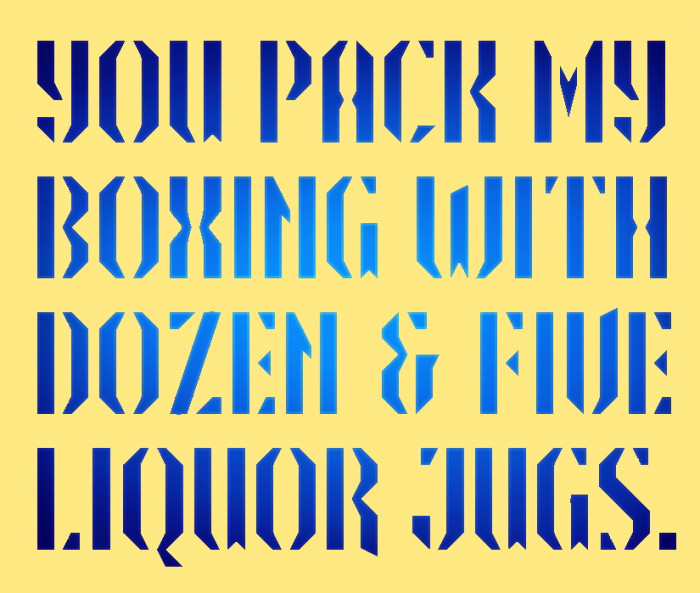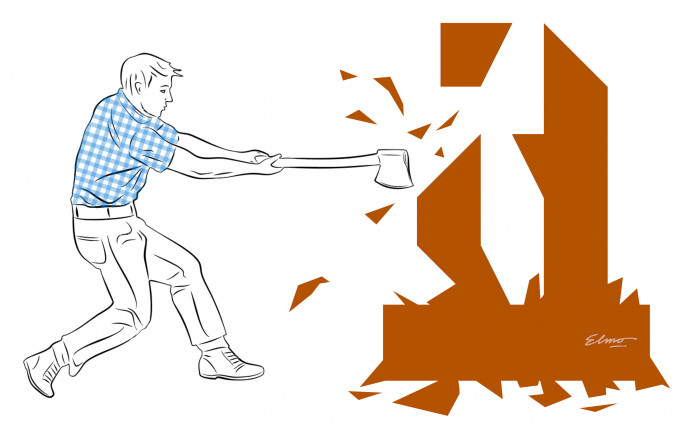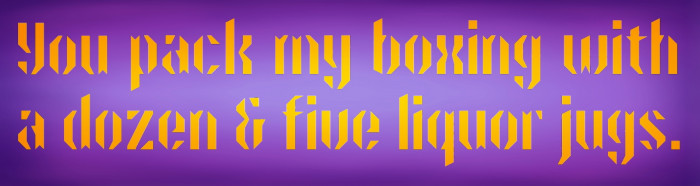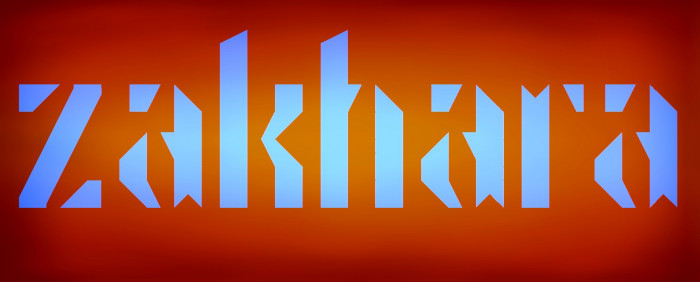
This is what I call a sharp typeface!
@riccard0: Thank you very much for your kind and encouraging comments! I really wanted to get a collection of glyphs without curves, such as "cuted with ax" or "knife carved", with a minimum of serifs or other ornaments... A simple but at the same time nice font to see. That was my initial intention, I don't know if I will have achieved some of it. Glad you like it!
That would be impossible in real life as the top bit would fall down as there is nothing holding it up. Good thing he is wearing shoes as that is where it would likely fall
Great stencil font and an excellent illustration!
Added Cyrillic. Suggestions to improve these glyphs are very welcomed.
Nice stencil work pal congratz on the TP!